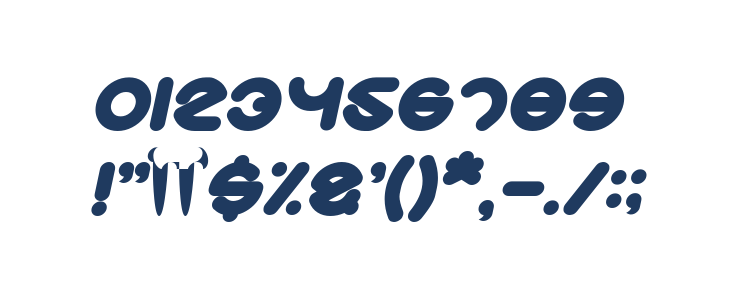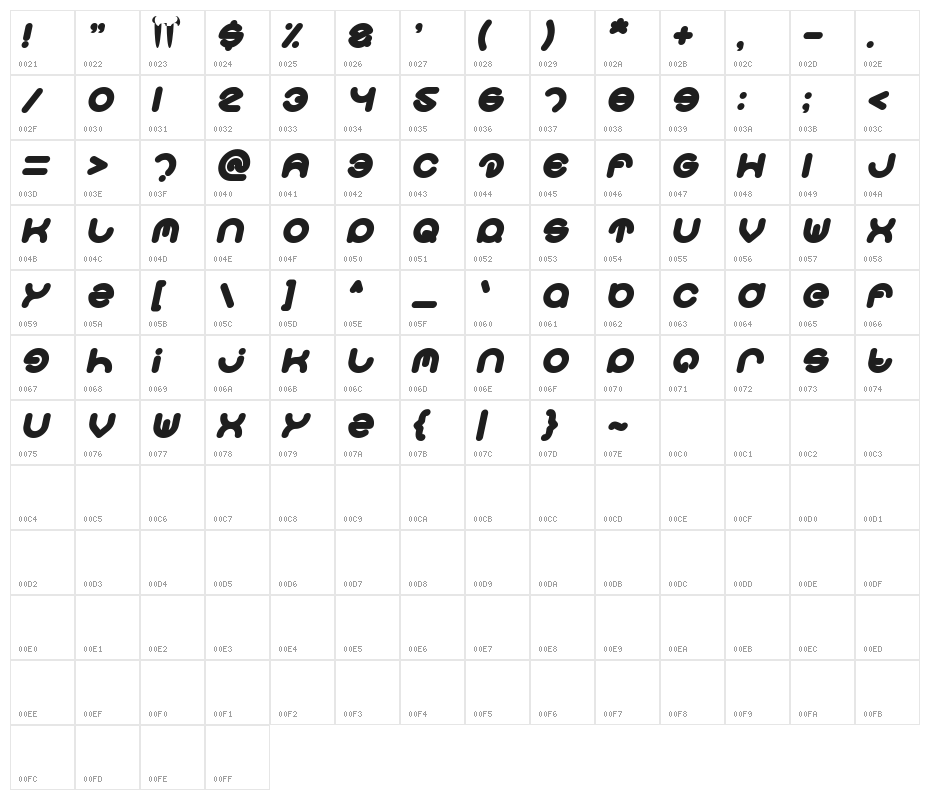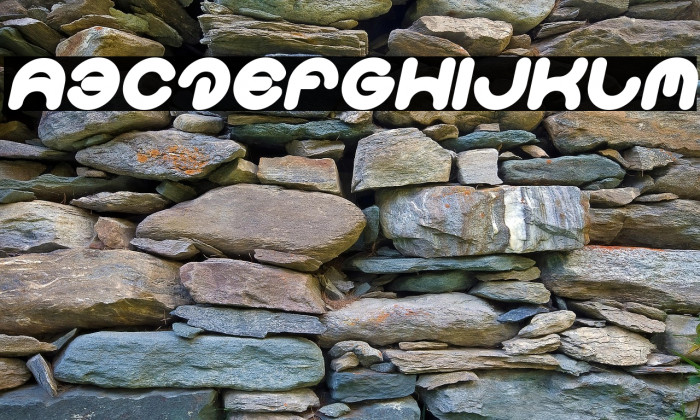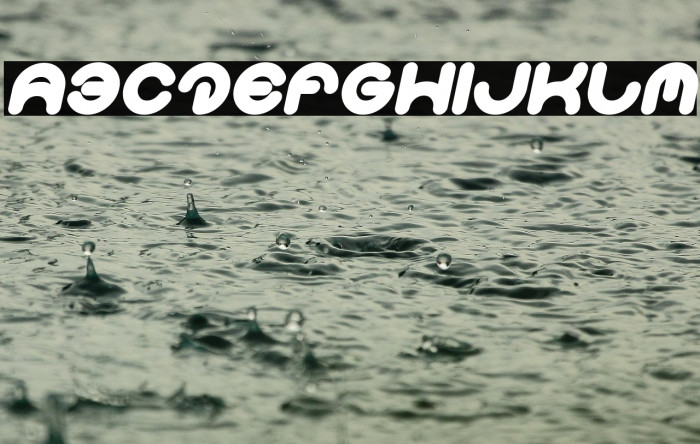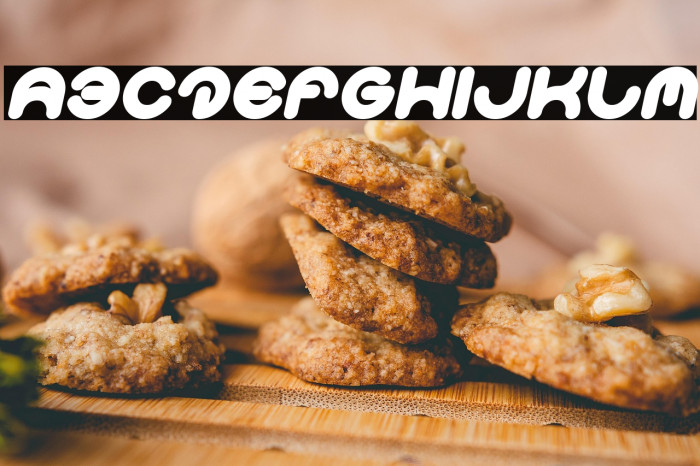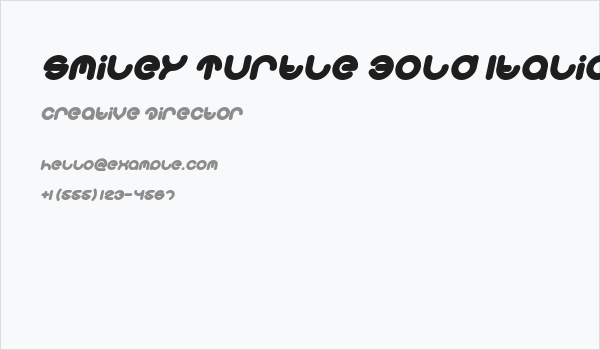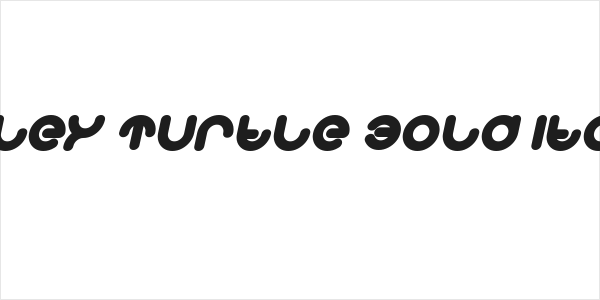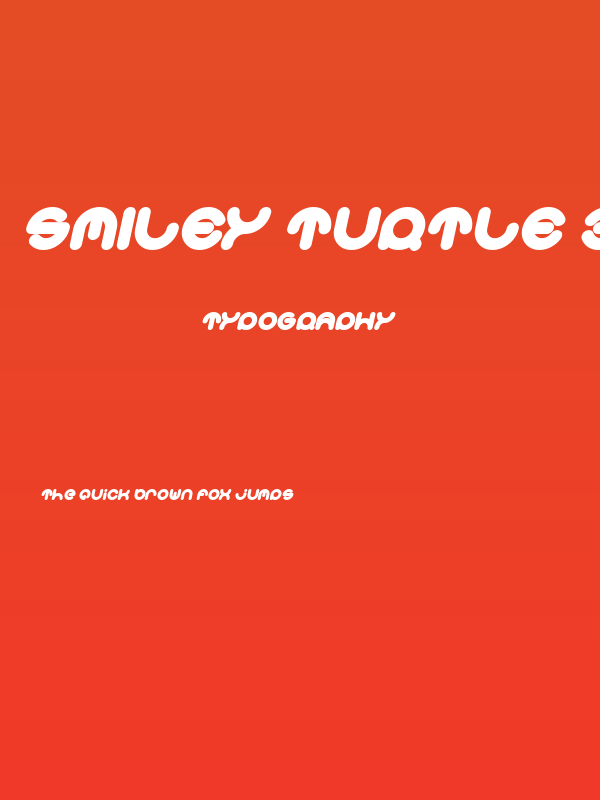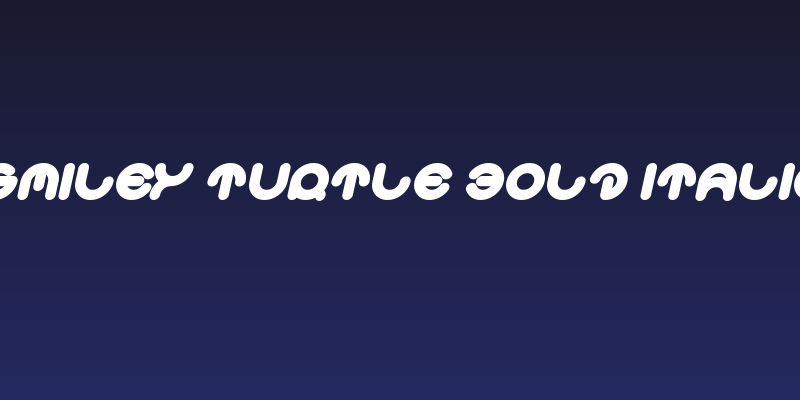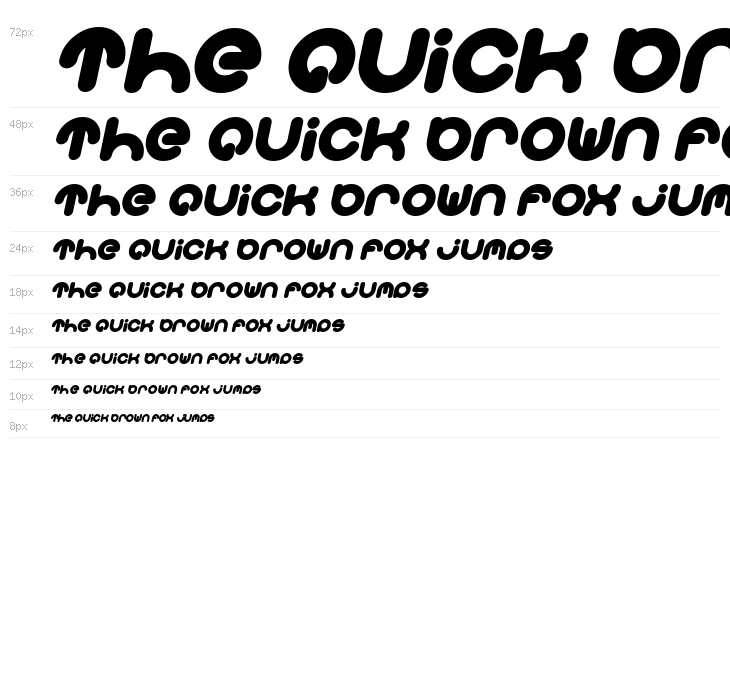
Smiley Turtle Bold Italic Font
Smiley Turtle Bold Italic Description
This font features a playful and bold design with rounded, bubble-like characters. The strokes are thick and consistent, giving it a strong presence. The letters are slightly italicized, adding a dynamic and informal touch. The overall appearance is smooth and friendly, making it suitable for creative and fun projects. The numbers and special characters maintain the same bubbly style, ensuring consistency across all glyphs.
| Overall Style | Playful, Fun, Modern |
| Proposed Projects | Ideal for children's books, playful branding, party invitations, and any project requiring a fun and approachable typeface. |